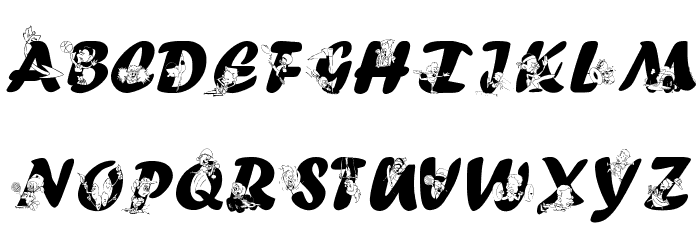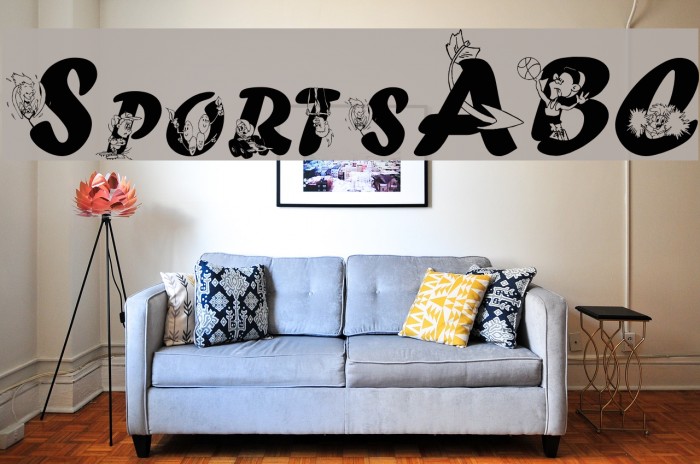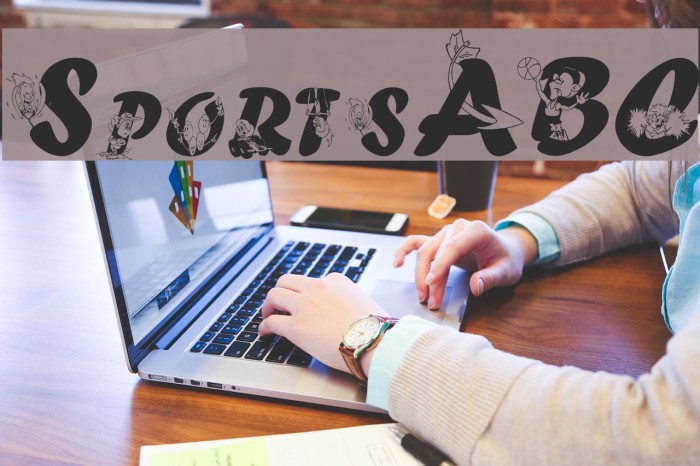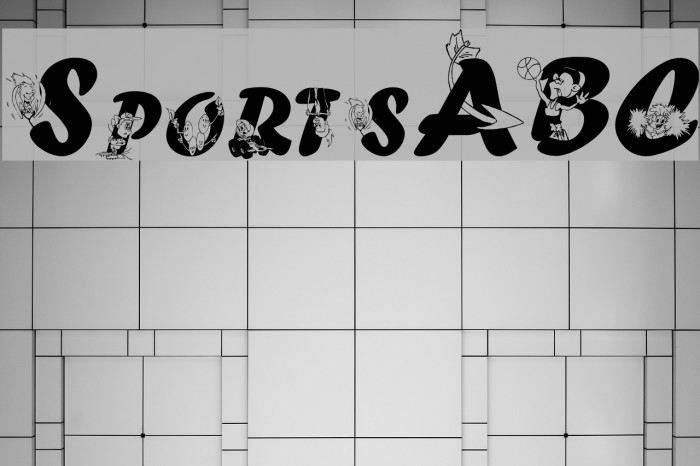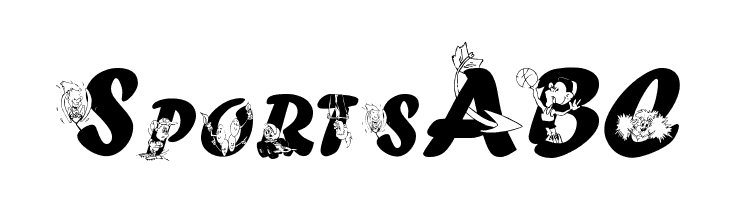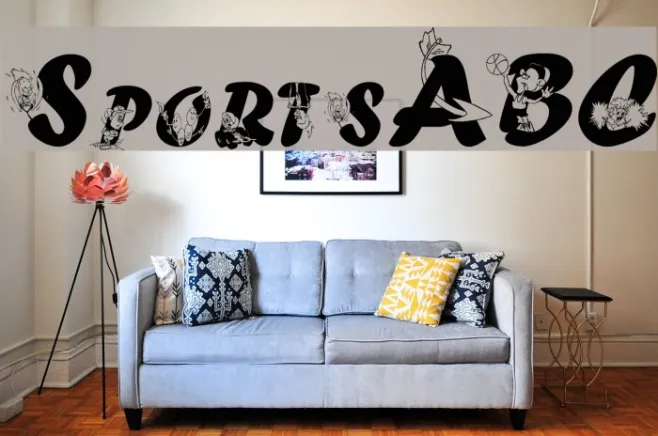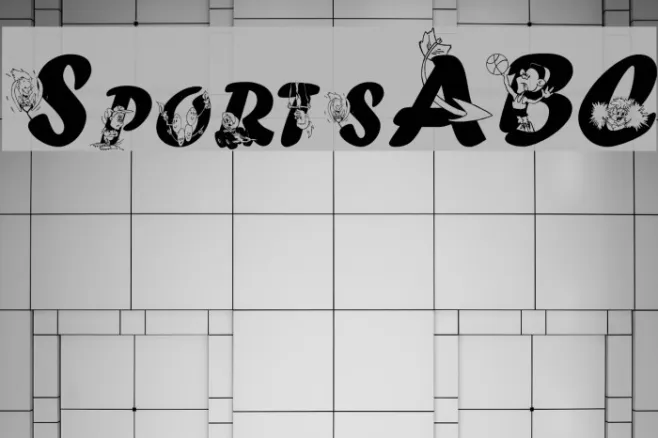
SportsABC Font
This font features a playful and dynamic design, incorporating sports-themed illustrations within each letter. The bold, rounded characters are interspersed with small, detailed images of athletes in action, creating a lively and energetic feel. The font's unique style makes it stand out, with each letter offering a visual story that captures the essence of various sports. The overall appearance is both decorative and engaging, making it suitable for projects that aim to convey excitement and movement.
A bold, sports-themed decorative font with integrated athlete illustrations.
- Proposed Projects: Ideal for sports event posters, children's sports programs, playful branding, and themed merchandise.
- Overall Style: Playful, Energetic, Decorative
- Use Case: Headlines, Posters, Branding